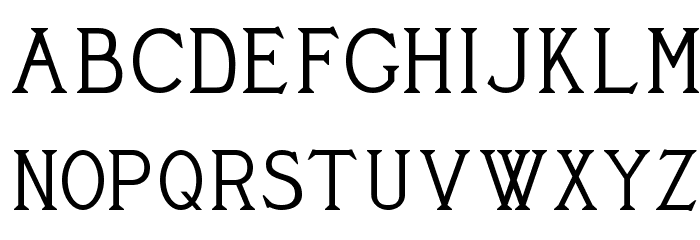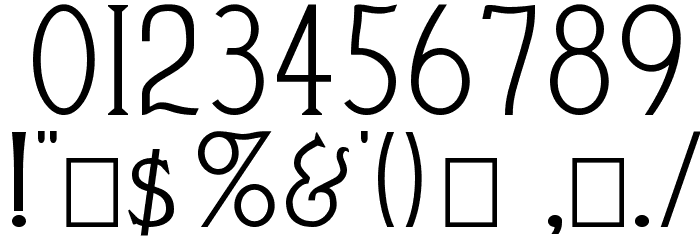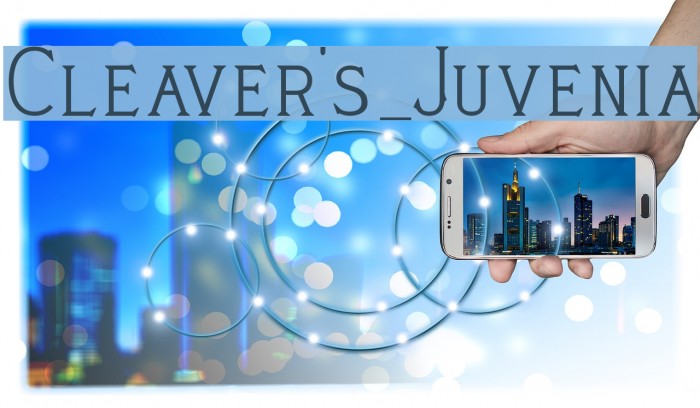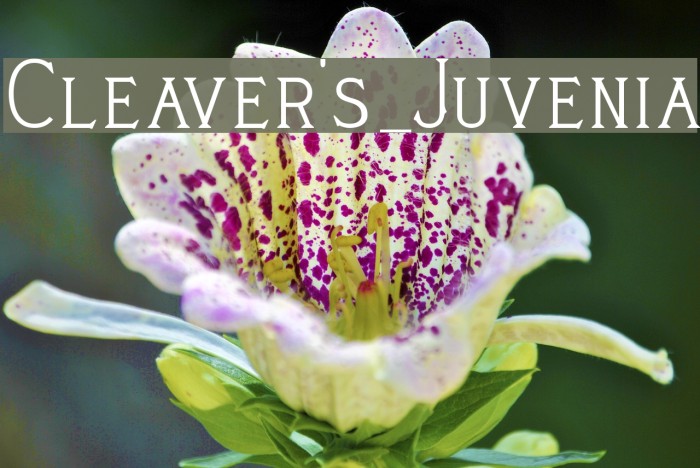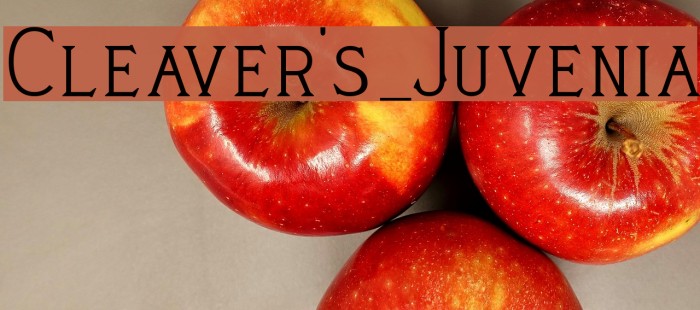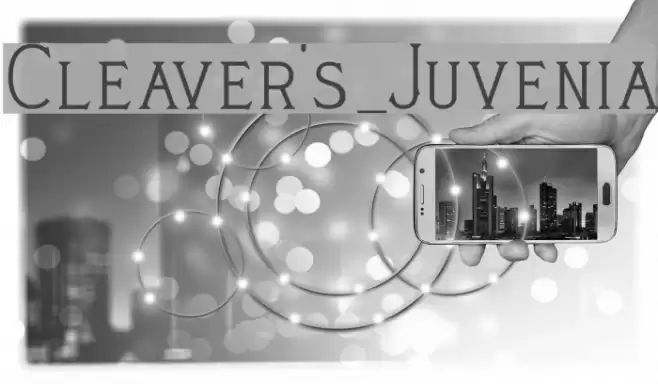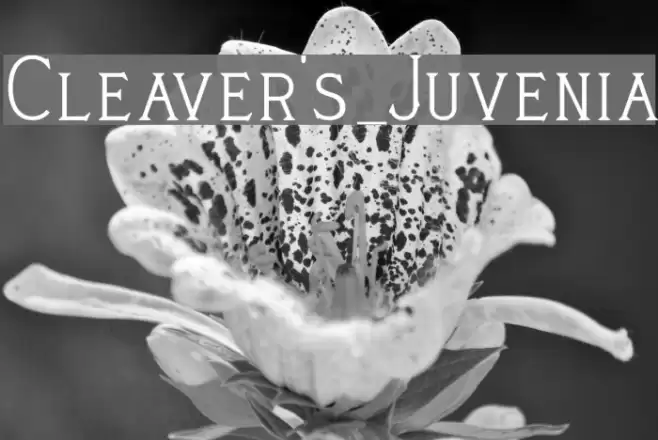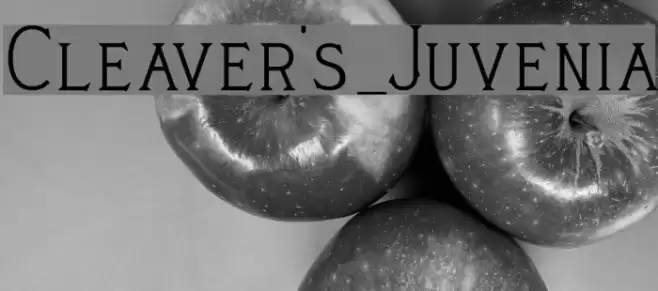
Cleaver's_Juvenia Font
This font exhibits a classic serif style with a modern twist, characterized by its elegant and refined letterforms. The uppercase letters are tall and commanding, with distinct serifs that add a touch of sophistication. The lowercase letters maintain a consistent style, offering a harmonious blend with the uppercase. Numbers are clear and legible, making them suitable for various applications. Special characters are well-designed, ensuring versatility in usage. The overall appearance is both timeless and contemporary, making it a versatile choice for a range of design projects.
A classic serif font with a modern twist, featuring elegant and refined letterforms.
- Proposed Projects: Ideal for editorial design, book covers, branding, and formal invitations.
- Category: Serif
- Overall Style: Classic